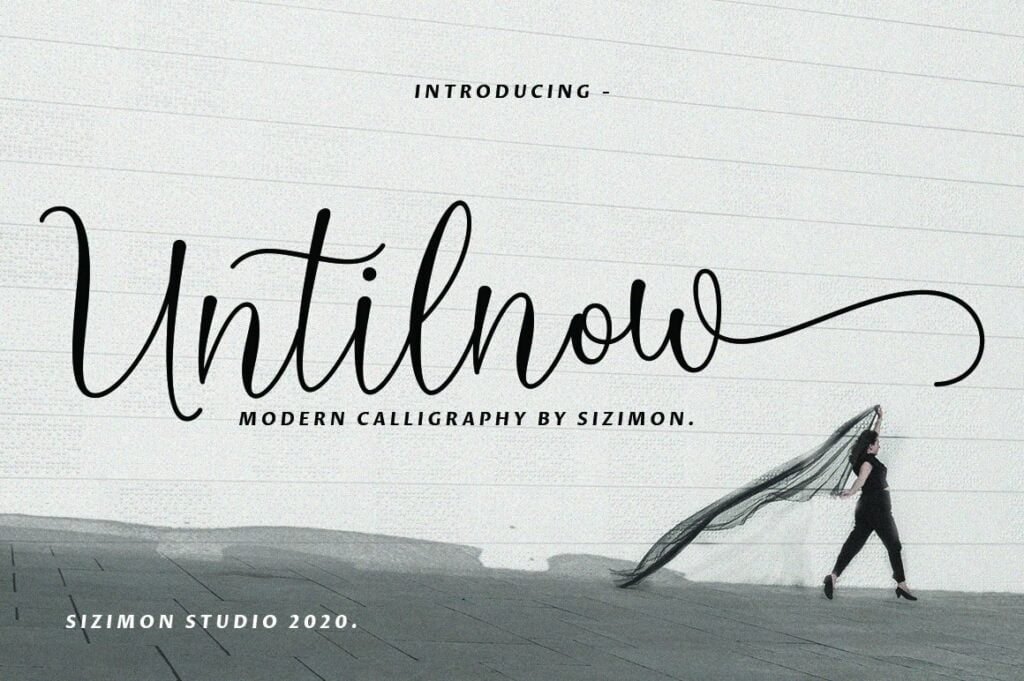
Untilnow Font
Introducing our latest product Untilnow Script Connecting script, designed to convey elegance and style. It is slender, feminine and friendly. Untilnow is perfect for fashion, e-commerce brands, trend blogs, or any business that wants to appear classy and chic.
Untilnow Calligraphy Script Font